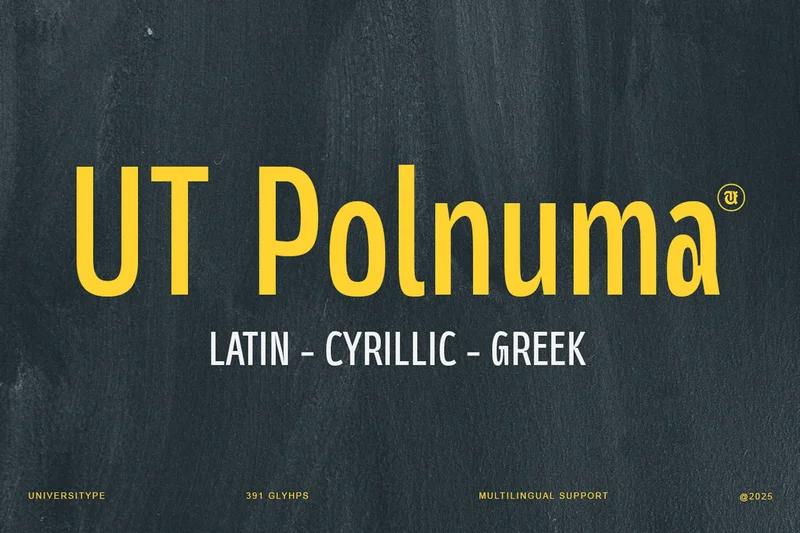
Polnuma – A Modern Sans Serif
Introducing Polnuma, a versatile and modern sans-serif typeface. Designed with a focus on readability and legibility, Polnuma is perfect for both digital and print media. Its clean lines and geometric shapes make it suitable for a wide range of applications, from branding and advertising to editorial design and web typography.
Key Features:
Multilingual Support: Includes Latin, Cyrillic, and Greek alphabets, making it suitable for diverse linguistic needs.
Complete Character Set: Offers a full range of numerals, punctuation marks, fractions, scientific inferiors/superiors, and currency symbols.
Versatile Weights: Available in various weights to suit different design requirements.
Ligatures and Special Characters: Enhances text aesthetics and readability with additional ligature options.
High Legibility: Designed with open counters and clear differentiation between similar letterforms.
Inspiration Behind the Design:
Polnuma draws inspiration from modern geometric typefaces, aiming to strike a balance between classic simplicity and contemporary design trends. The “unfinished” design approach adds a dynamic and creative touch, making it appealing for modern branding and editorial projects.
Features: Multilingual support, complete character set, ligatures, variable weights, high legibility